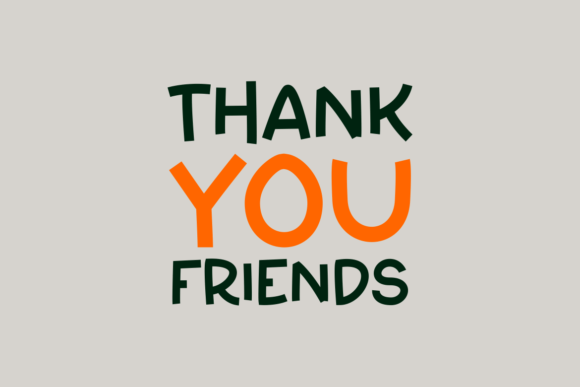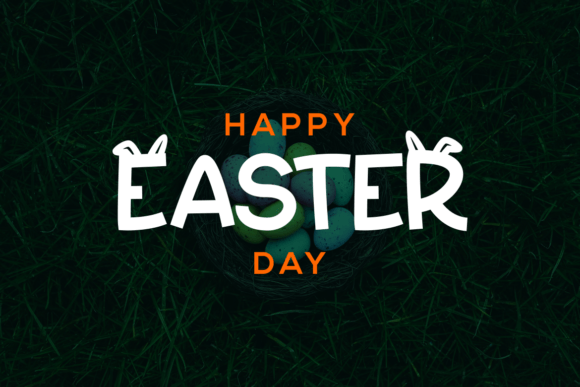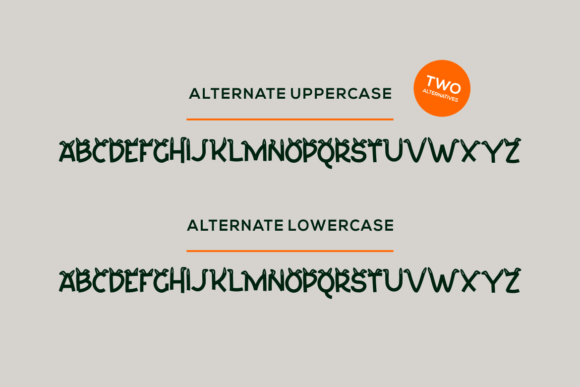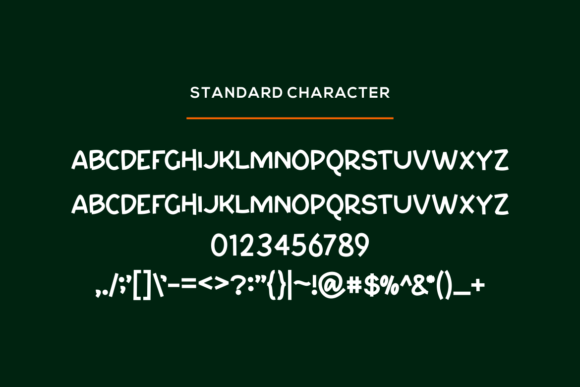
Easter Quiz Font: The Perfect Addition to Your Easter Designs
Are you looking for a font that will add a touch of sweetness and friendliness to your Easter designs? Look no further than the Easter Quiz Font! This beautiful handwritten font is perfect for creating eye-catching and unique designs that will make your audience smile.
What Makes Easter Quiz Font So Special?
Easter Quiz Font is a sweet and friendly handwritten font that is sure to capture the hearts of your audience. Its natural and unique style makes it incredibly fitting to a large pool of designs, from Easter-themed crafts to spring-inspired marketing materials. The only limit is your imagination!
Key Features of Easter Quiz Font
- Handwritten style: Easter Quiz Font has a beautiful, handwritten style that gives it a personal and friendly touch.
- Natural and unique: The font’s natural and unique style makes it perfect for creating one-of-a-kind designs that stand out from the crowd.
- Versatile: Easter Quiz Font can be used for a wide range of designs, from Easter-themed crafts to spring-inspired marketing materials.
- Easy to read: Despite its handwritten style, Easter Quiz Font is easy to read and understand, making it perfect for use in body text.
Easter Quiz Font is perfect for designers and crafters who want to add a personal touch to their Easter designs. Whether you’re creating Easter-themed crafts, such as party invitations, gift tags, or Easter baskets, or designing marketing materials, such as flyers, brochures, or social media graphics, Easter Quiz Font is the perfect choice.
Easter Design Ideas Using Easter Quiz Font
Here are some Easter design ideas that you can create using Easter Quiz Font:
- Easter party invitations: Create beautiful and unique Easter party invitations that will set the tone for your Easter celebration.
- Easter gift tags: Add a personal touch to your Easter gifts with custom gift tags created using Easter Quiz Font.
- Easter baskets: Create custom Easter baskets with personalized labels and decorations made using Easter Quiz Font.
- Spring-inspired marketing materials: Use Easter Quiz Font to create eye-catching marketing materials, such as flyers, brochures, or social media graphics, that will help you connect with your audience.
Tips for Using Easter Quiz Font
Here are some tips for using Easter Quiz Font:
- Use it with pastel colors: Easter Quiz Font looks perfect with pastel colors, such as pink, blue, and yellow, which are commonly associated with Easter.
- Experiment with different sizes: Easter Quiz Font can be used in a variety of sizes, from small body text to large headings.
- Pair it with other fonts: Easter Quiz Font can be paired with other fonts to create a unique and interesting design.
Easter Quiz Font is a beautiful and versatile font that is perfect for creating unique and eye-catching Easter designs. Its natural and unique style makes it incredibly fitting to a large pool of designs, and its ease of use makes it perfect for designers and crafters of all levels. So why not give Easter Quiz Font a try and see what amazing designs you can create?